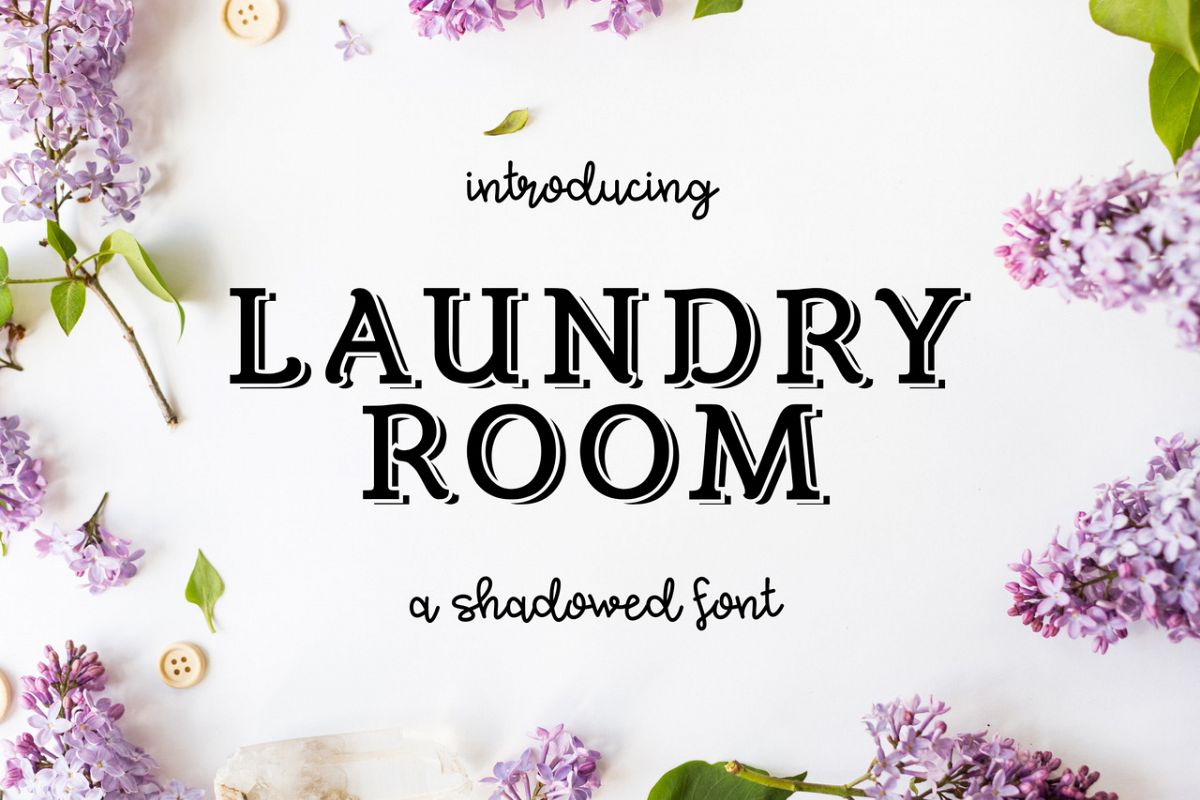
Laundry Room
A smooth, slab serif shadow font perfect for signage and other displays.
Because Laundry Room has a thin shadow that won't display well at small sizes, we recommend that you use it from 32px and larger.